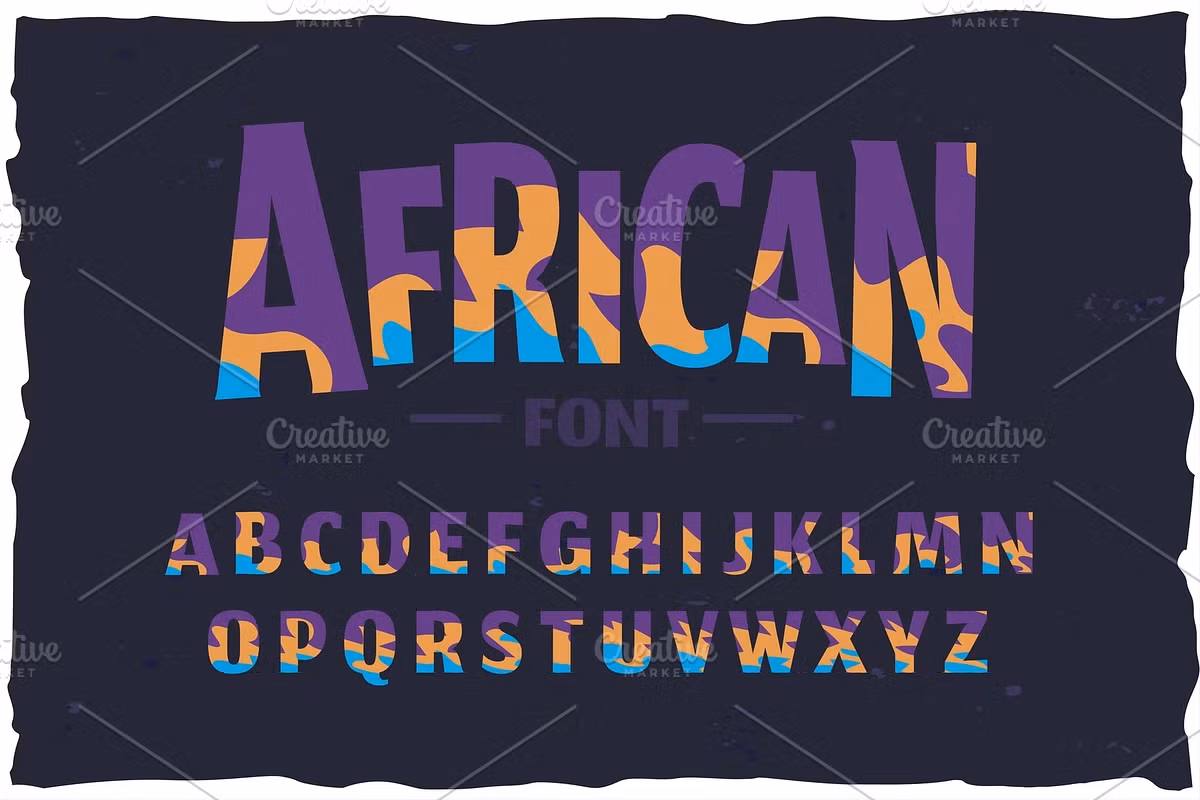
The OTF Color Font! Funny African Style Free Download is a vibrant and lively typeface that brings a playful and colorful flair to your designs. Inspired by African art and culture, this font features bold, dynamic letterforms with a unique, fun twist. Perfect for projects that need an energetic and joyful vibe, this font is ideal for event promotions, cultural branding, social media graphics, and more.
OTF Color Font! Funny African Style Free Download is perfect for designers looking to add a cheerful, ethnic touch to their work. Whether you're designing for an African-themed event, brand, or project, this font will help your designs stand out with its lively and fun energy. Download this colorful font today and infuse your projects with vibrant African style!